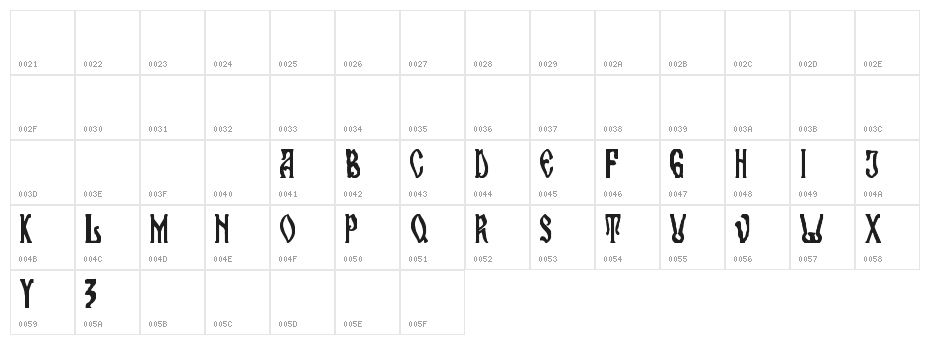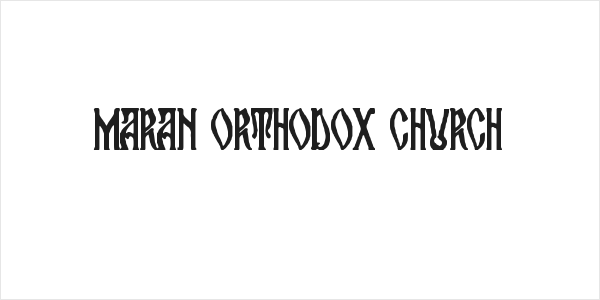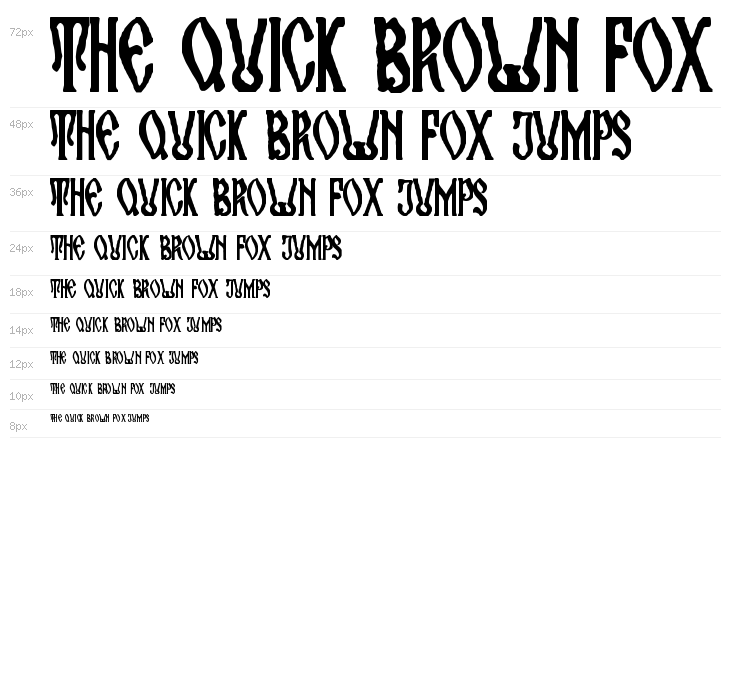
maran orthodox church Font
maran orthodox church Description
This font features a bold and dramatic style, characterized by its intricate and ornate letterforms. Each character is designed with a unique flair, incorporating elements that suggest a historical or cultural influence. The uppercase letters are particularly striking, with sharp angles and decorative serifs that give them a commanding presence. The lowercase letters maintain a similar aesthetic, ensuring consistency throughout the typeface. The numbers and special characters are equally detailed, making this font suitable for projects that require a strong visual impact.